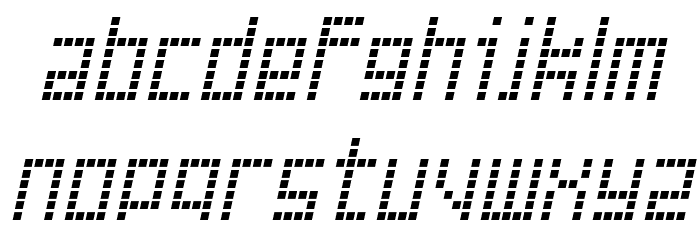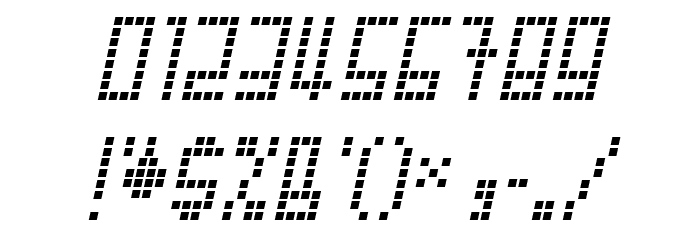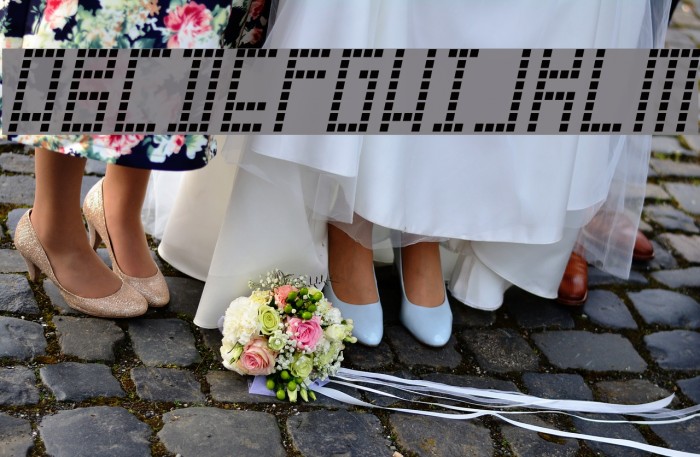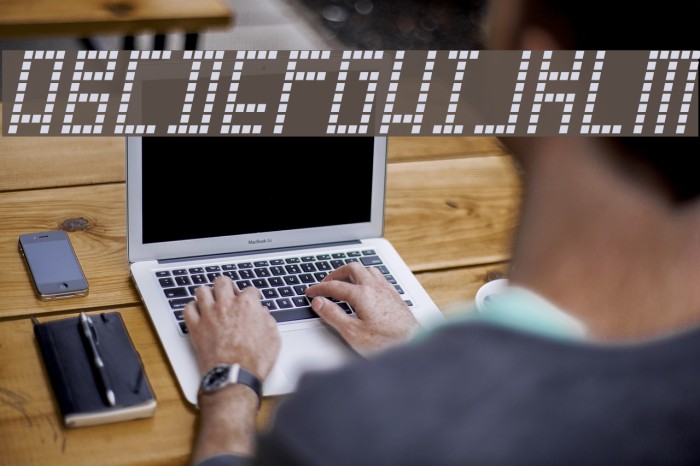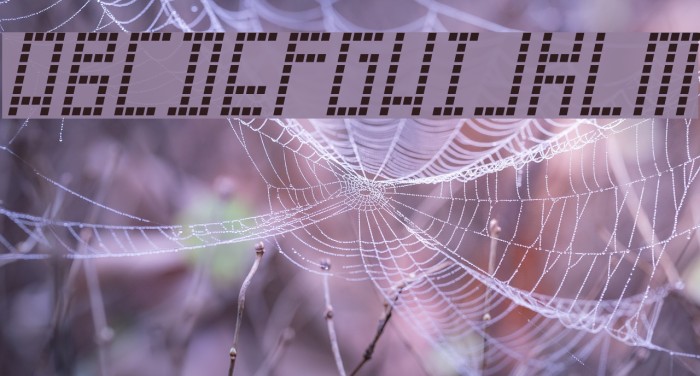
Failed Attempt Font
This font features a distinctive pixelated design, reminiscent of early digital displays and retro video games. Each character is composed of small, uniform squares, creating a grid-like appearance that is both geometric and structured. The uppercase and lowercase letters maintain a consistent height, while the numerals and special characters align seamlessly with the overall aesthetic. This design choice gives the font a modern, tech-inspired feel, suitable for projects that aim to evoke nostalgia or a digital theme. The uniformity of the squares ensures clarity and readability, even at smaller sizes.
A pixelated, grid-based font with a retro digital aesthetic.
- Proposed Projects: Ideal for video game design, tech-themed posters, digital art projects, and retro-inspired branding.
- Use Case: Logos, Headlines, Digital displays